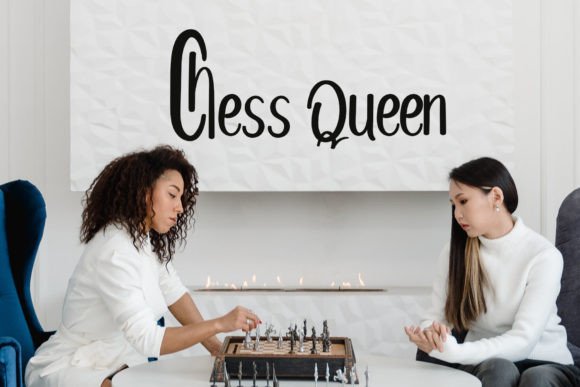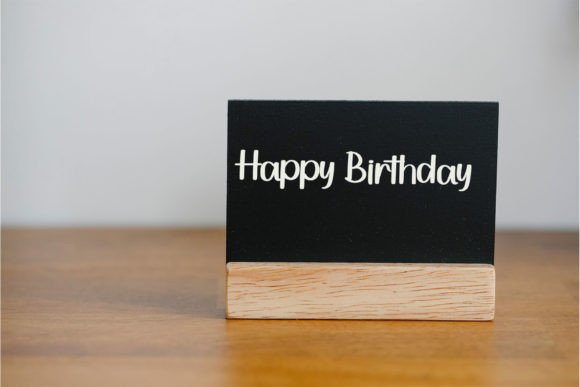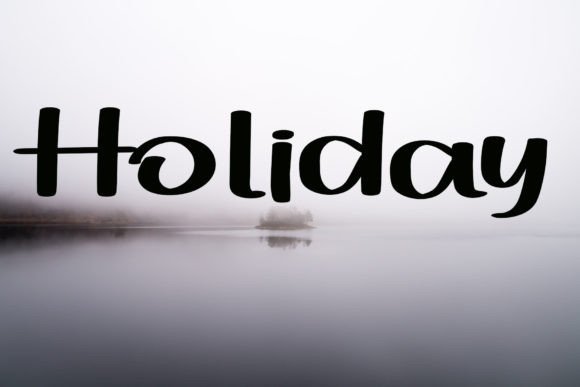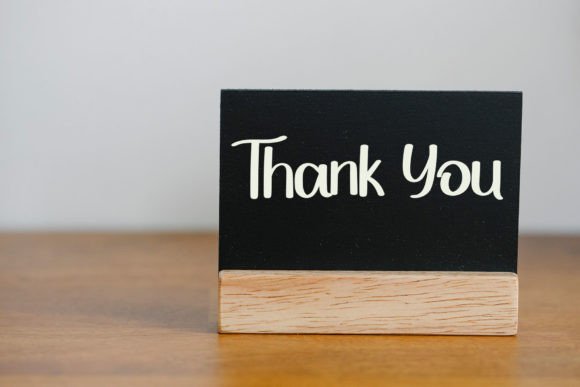
Introducing Gift Christmas Font: Elevate Your Holiday Designs with Elegance
The holiday season is upon us, and with it comes the need for beautiful, eye-catching designs that capture the spirit of Christmas. Whether you’re a designer, crafter, or DIY enthusiast, having the right font can make all the difference in creating stunning holiday-themed projects. This is where Gift Christmas Font comes in – a delicate, elegant, and flowing handwritten font that’s perfect for adding a touch of sophistication to your Christmas designs.
A Delicate and Elegant Font for the Holiday Season
Gift Christmas Font is a beautifully crafted font that exudes elegance and refinement. Its delicate and flowing handwritten style makes it perfect for creating stunning holiday-themed projects, from Christmas cards and invitations to gift tags and decorations. The font’s well-balanced characters ensure that it pairs well with a wide range of designs, making it a versatile addition to your font collection.
Key Features of Gift Christmas Font
- Delicate and elegant handwritten style: Gift Christmas Font features a beautiful, flowing script that’s perfect for creating sophisticated holiday designs.
- Well-balanced characters: The font’s characters are carefully crafted to ensure that they are well-balanced and visually appealing, making it easy to pair with a wide range of designs.
- Versatile: Gift Christmas Font can be used for a variety of holiday-themed projects, from Christmas cards and invitations to gift tags and decorations.
- Easily readable: Despite its elegant style, Gift Christmas Font is still easily readable, making it perfect for use in body text as well as headings.
How to Use Gift Christmas Font in Your Designs
Gift Christmas Font is incredibly easy to use and can be incorporated into your designs in a variety of ways. Here are a few ideas to get you started:
- Christmas Cards and Invitations: Use Gift Christmas Font to create beautiful, elegant Christmas cards and invitations that are sure to impress.
- Gift Tags and Decorations: Add a touch of elegance to your gift tags and decorations with Gift Christmas Font.
- Holiday Blog Posts and Social Media: Use Gift Christmas Font to add a festive touch to your holiday blog posts and social media updates.
- DIY Crafts: Gift Christmas Font is perfect for use in DIY crafts, such as making holiday-themed signs, banners, and decorations.
Gift Christmas Font is a beautiful, elegant, and versatile font that’s perfect for adding a touch of sophistication to your holiday designs. With its delicate and flowing handwritten style, well-balanced characters, and ease of use, it’s a must-have for designers, crafters, and DIY enthusiasts. Whether you’re creating Christmas cards and invitations, gift tags and decorations, or holiday blog posts and social media updates, Gift Christmas Font is sure to elevate your designs and make them stand out.